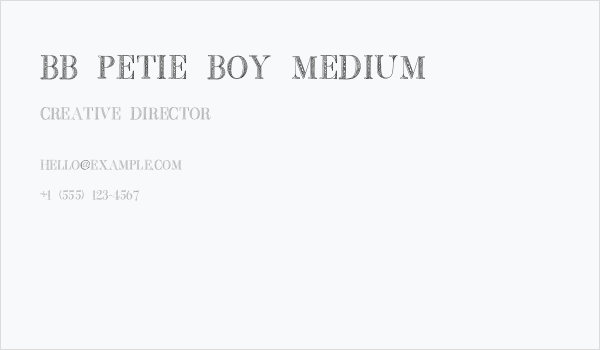
BB Petie Boy Medium Font
BB Petie Boy Medium Description
This font features a decorative style with a hand-drawn, sketch-like appearance. Each character is outlined with a bold stroke and filled with intricate hatching, giving it a textured and artistic look. The uppercase letters are prominent and commanding, while the lowercase letters maintain the same detailed design. Numbers and special characters follow the same aesthetic, ensuring consistency across all glyphs. The font's unique style makes it stand out, ideal for projects that require a creative and eye-catching typeface.
| Proposed Projects | Ideal for artistic projects, posters, branding, and any design requiring a creative flair. |